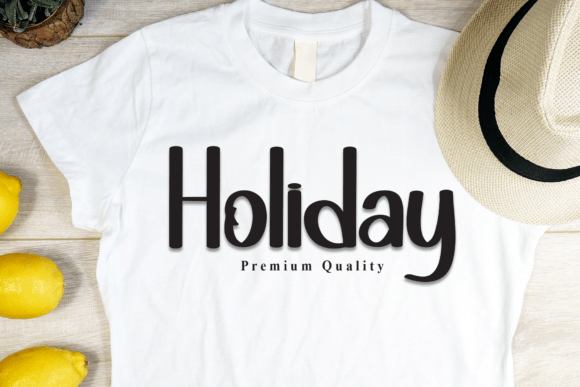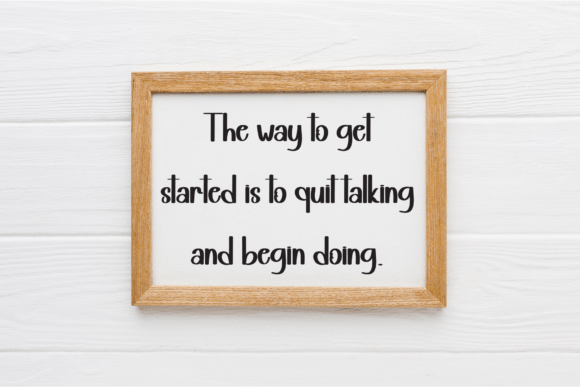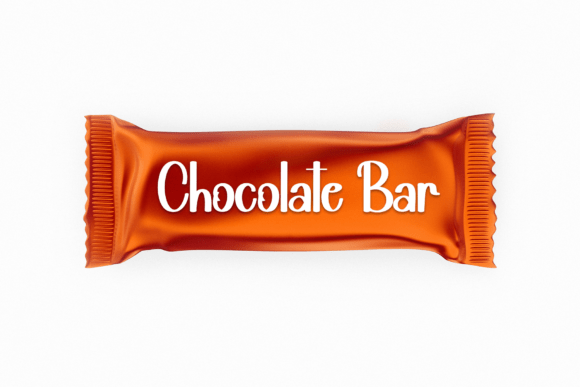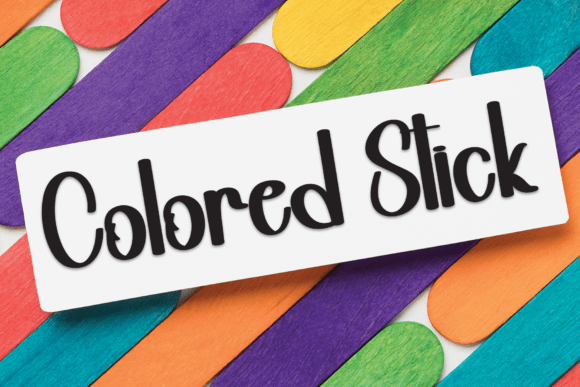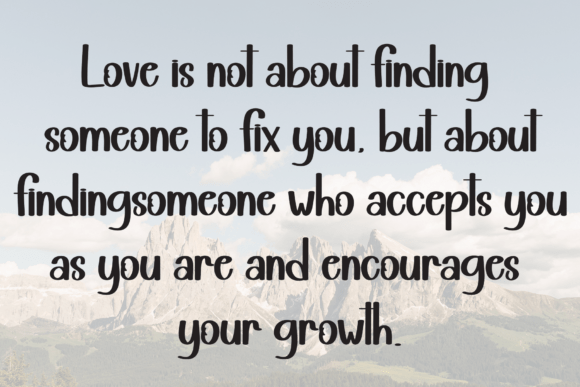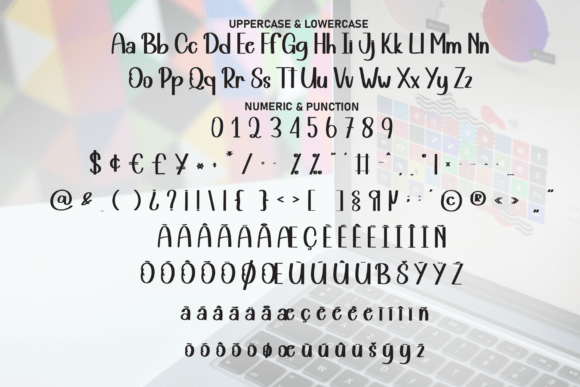
Discover the Joy of Handwritten Charm with Beach Designer Font
As a designer, have you ever stared at a blank page, searching for the perfect font to bring your creative vision to life? We’ve all been there – the blank slate, the endless options, and the struggle to find that perfect balance of elegance and playfulness. But what if I told you there’s a font that can make that process a breeze, turning even the most mundane text into a work of art?
Enter Beach Designer Font, a captivating handwritten display typeface that’s as charming as it is versatile. With its sweet appeal and welcoming aura, this font is perfect for creating unforgettable wedding invitations, heartfelt cards, and enthralling designs that demand a dash of fun. As a designer, you’ll love the value it adds to your work, elevating even the simplest text into a masterpiece.
Key Features of Beach Designer Font
- Font Style: Beach Designer Font is a unique, hand-drawn font that captures the feeling of a seaside escape.
- Unique Characteristics: Features a distinctive, cursive script with a relaxed, beachy feel, perfect for creating a laid-back atmosphere.
Beach Designer Font Review
I recently had the chance to work with the Beach Designer Font, and I have to say, it’s a unique addition to any design project. ✨ One of the things that stood out to me was its versatility – it can be used for both casual and elegant designs, making it a great choice for a wide range of projects.
Another strength of the font is its legibility. ✨ The clean lines and subtle texture make it easy to read, even at smaller sizes. I also appreciated the variety of weights and styles available, which allowed me to create a range of visual effects.
While the Beach Designer Font has a lot to offer, there are a few limitations to be aware of:
- ⚠️ The font can be a bit too playful for more formal projects – it may not be the best choice for corporate or professional designs.
- ⚠️ Some of the weights and styles may be a bit too bold or ornate, which can be overwhelming if used too liberally.
Overall, I’m impressed with the Beach Designer Font. It’s a great choice for designers who want to add a touch of personality and whimsy to their projects. With a little bit of restraint and creativity, it can be used to create some truly amazing designs.
The Beach Designer Font is perfect for creating a beachy, relaxed vibe. Use it for:
- Summer-themed designs, such as beach party invitations and beach house decor.
- Travel brochures and travel guides.
- Summer-themed marketing materials, such as flyers and posters.
For the best results, use the Beach Designer Font in combination with beachy colors and textures, such as coral, turquoise, and sandy neutrals.